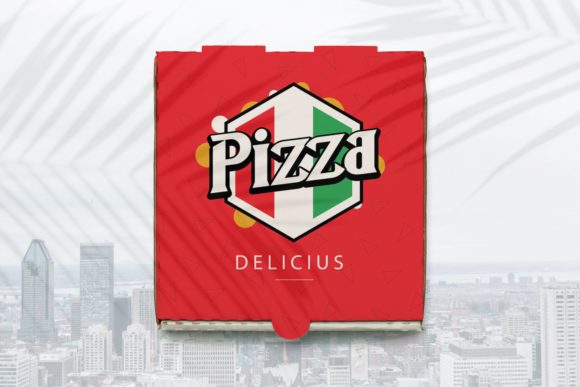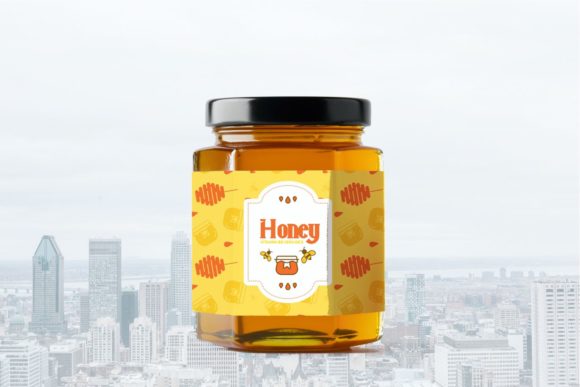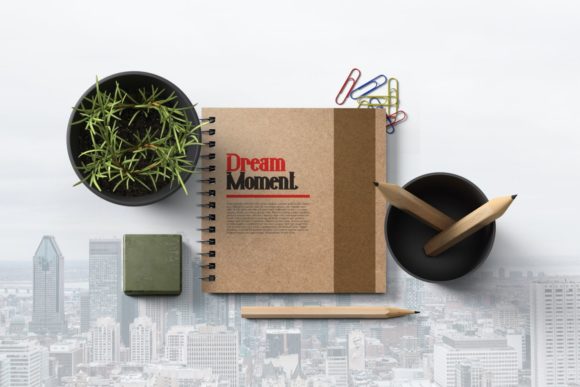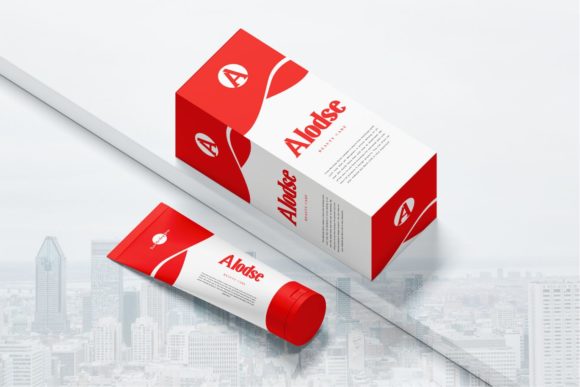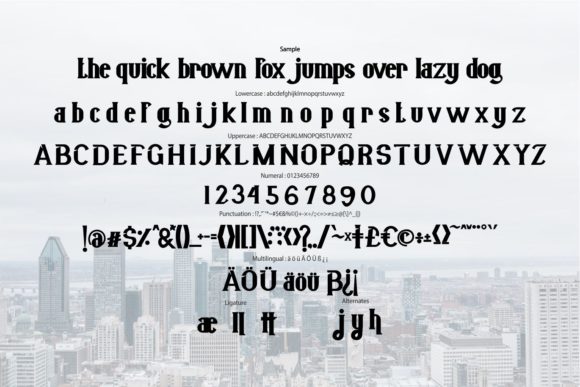
Introducing Bigcity Font: The Ultimate Display Font for Designers and Crafters
In the world of typography, a good font can make all the difference in creating a stunning visual impact. For designers and crafters looking for a bold and versatile display font, Bigcity Font is an excellent choice. This handcrafted font is designed to be a true favorite, offering a casual charm that makes it appear wonderfully down-to-earth, readable, and incredibly versatile.
The Characteristics of Bigcity Font
Bigcity Font is a bold display font that boasts a unique personality. Its carefully crafted design ensures that it stands out in any context, whether it’s being used on busy backgrounds or as a standalone headline. The font’s casual charm makes it perfect for designers and crafters who want to add a touch of warmth and approachability to their projects.
What Makes Bigcity Font So Versatile?
One of the key benefits of Bigcity Font is its versatility. This font can be used in a wide range of applications, from signage and posters to digital media and branding. Its bold and readable design ensures that it can be used on busy backgrounds, while its casual charm makes it perfect for more creative and artistic projects.
Using Bigcity Font in Different Contexts
Bigcity Font is an incredibly flexible font that can be used in various contexts. Here are a few examples:
- Headlines and Titles: Bigcity Font is perfect for creating bold and eye-catching headlines and titles. Its large size and clear design make it easy to read, even from a distance.
- Signage and Posters: The font’s bold design and casual charm make it ideal for signage and posters. It can be used to grab attention and communicate a message quickly and effectively.
- Branding and Logo Design: Bigcity Font can be used to create unique and memorable brand identities. Its versatility and readability make it perfect for logos, business cards, and other marketing materials.
- Digital Media: The font’s clear design and bold character make it suitable for digital media, including social media graphics, website headers, and email marketing campaigns.
Why Designers and Crafters Love Bigcity Font
Bigcity Font has become a favorite among designers and crafters due to its unique combination of style and versatility. Here are a few reasons why:
- Easy to Read: Despite its bold design, Bigcity Font is incredibly easy to read. Its clear and simple design ensures that it can be read quickly and easily, even in small sizes.
- Highly Versatile: Bigcity Font can be used in a wide range of applications, from print to digital media. Its flexibility makes it a valuable asset for designers and crafters.
- Unique Personality: Bigcity Font has a unique personality that sets it apart from other fonts. Its casual charm and bold design make it perfect for designers and crafters who want to add a touch of warmth and approachability to their projects.
In conclusion, Bigcity Font is an exceptional display font that offers a unique combination of style, versatility, and readability. Its bold design, casual charm, and highly versatile nature make it perfect for designers and crafters looking to add a touch of warmth and approachability to their projects. Whether you’re creating signage, posters, branding materials, or digital media, Bigcity Font is an excellent choice.